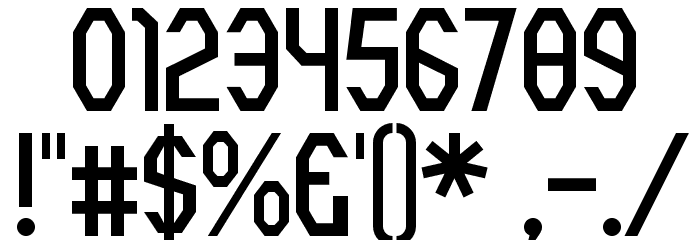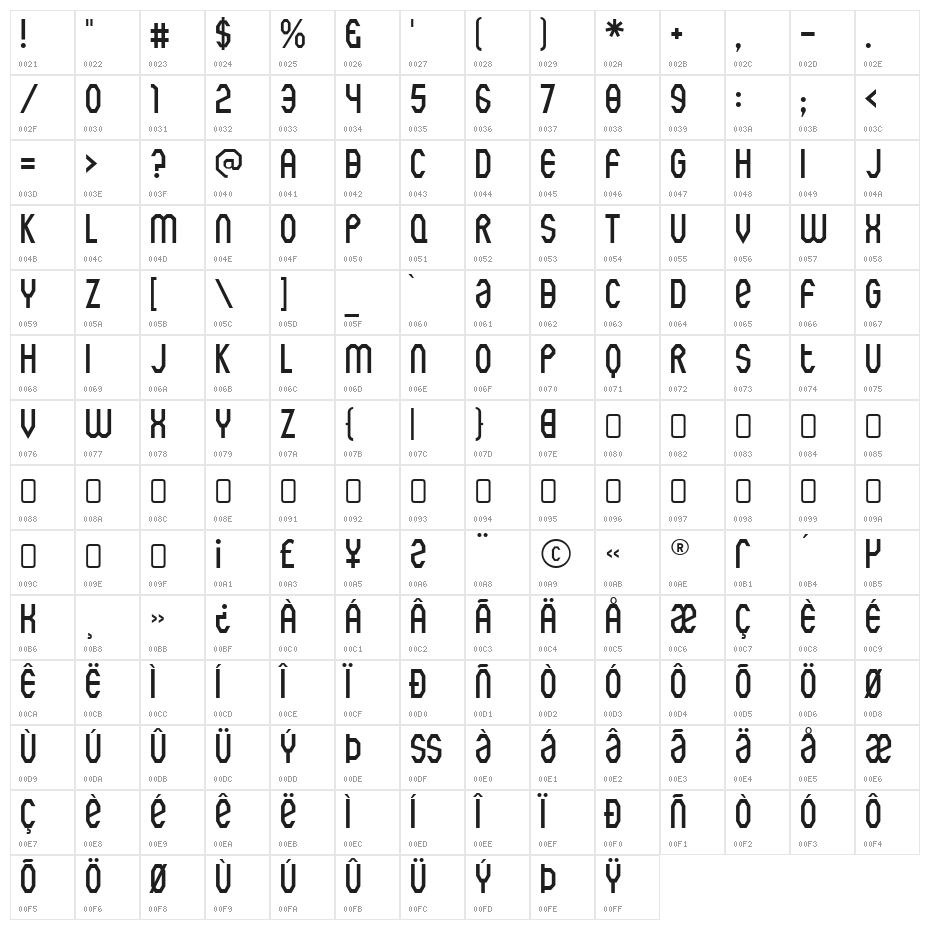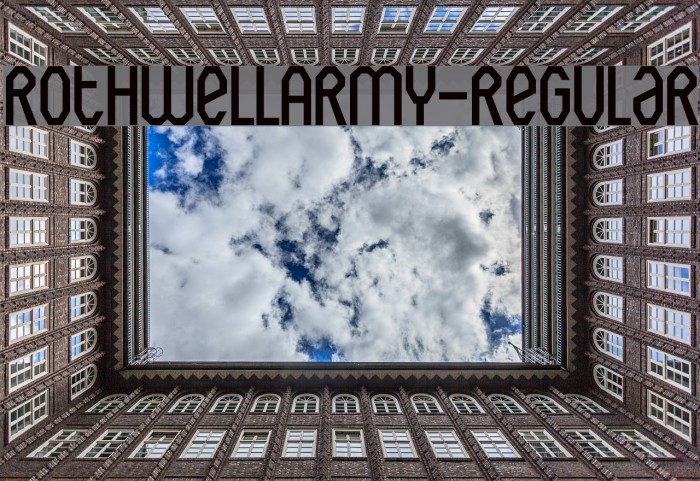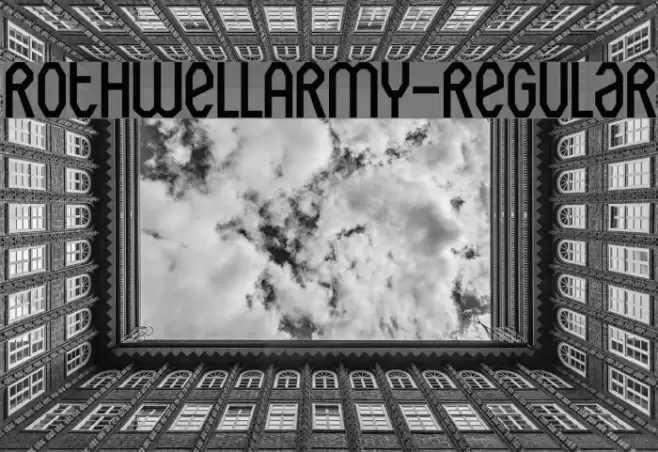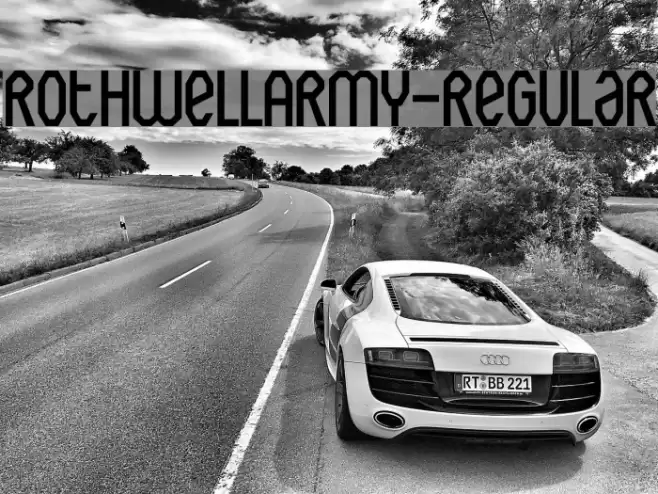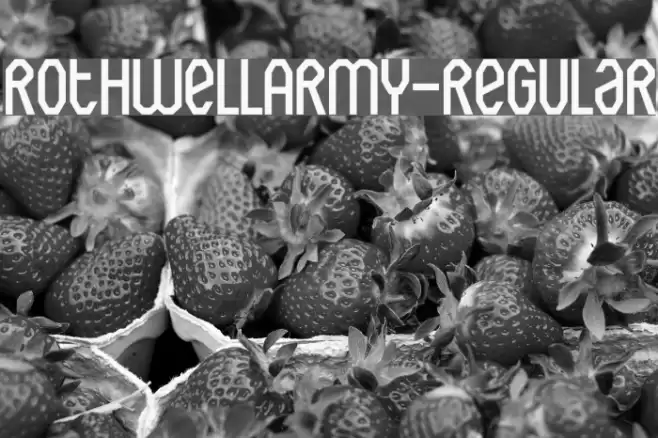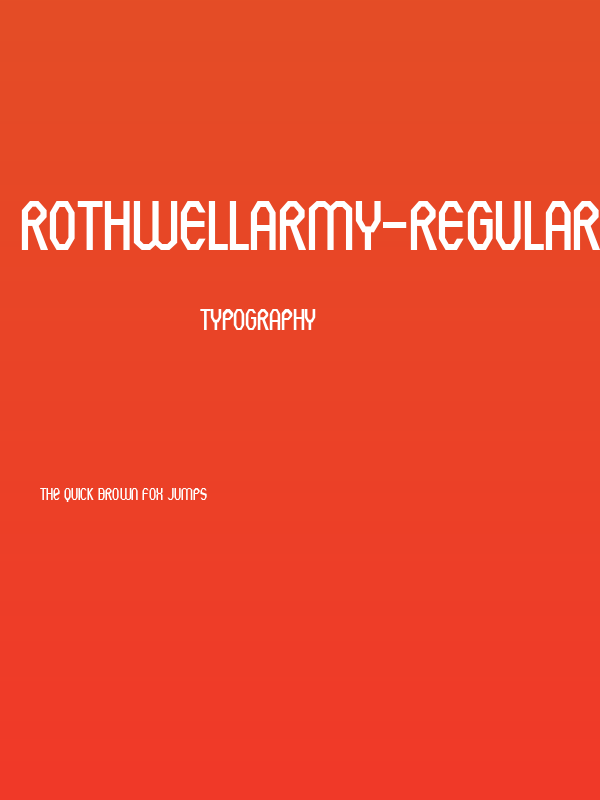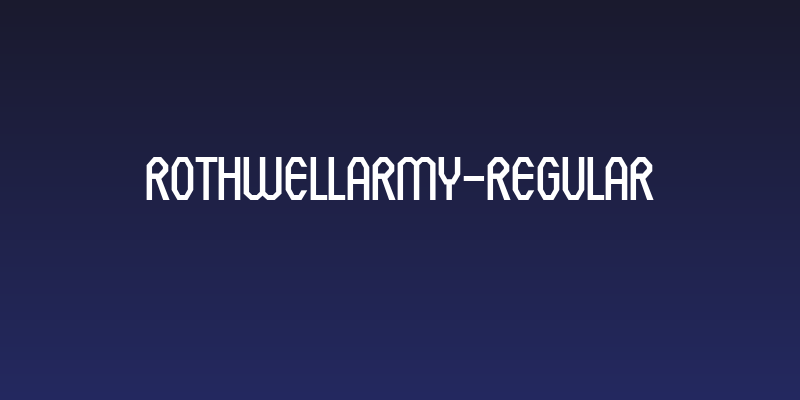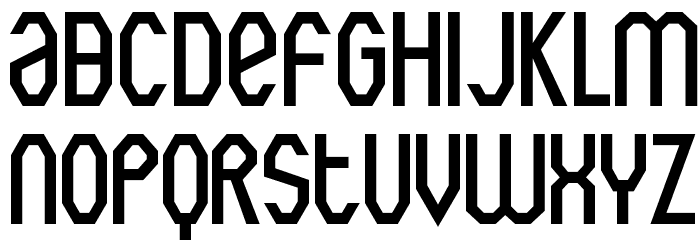
RothwellArmy-Regular Font
RothwellArmy-Regular Description
This font features a bold, geometric design with a distinct military-inspired aesthetic. The characters are constructed with sharp angles and clean lines, giving it a structured and disciplined appearance. The uppercase letters are particularly striking, with a uniform height and width that enhances the font's strong visual impact. The numerals and special characters maintain this cohesive style, ensuring consistency across all text elements. Its boldness and clarity make it highly legible, even at smaller sizes, while the unique design elements add a touch of modernity and sophistication.
| Proposed Projects | Ideal for military-themed designs, posters, branding, and signage where a strong, authoritative presence is desired. |